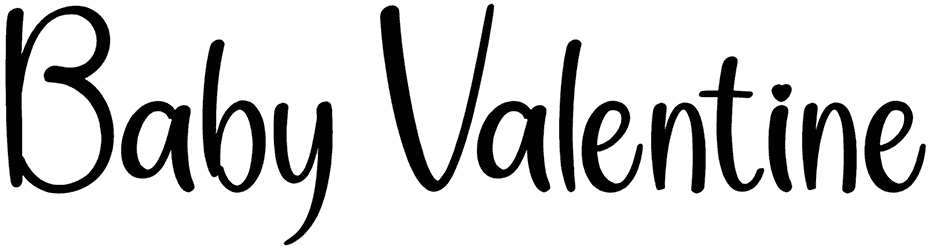
Baby Valentine Font
A modern and sweet letterform could be what your Valentine’s Day flyer needs to become adorable, and the Baby Valentine font has the potential to make it happen. As a member of our handwritten collection, it conveys a realistic and soft feeling. These characters, in combination with your innovative idea, are gonna be mesmerizing.
this is a sweet and friendly handwritten display font. Cute and fun, this font is ideal for writing wedding invitations, cards, or any other design that might need a playful touch!